190+ Best Handwritten Fonts for Logos, Branding & Creative Design
Handwritten Fonts are useful when a design needs personal lettering instead of rigid typography. A logo may need a polished signature, a wedding invitation may need romantic script, a Cricut project may need clean cut-friendly strokes, while stickers, packaging, posters, and social graphics may need cute, casual, bold, brush, or modern handwritten styles. This hub gathers the main Handwritten Fonts collections on Expressive Fonts and gives you a fast way to choose the right direction before opening the full font list.
Best Handwritten Fonts
Start with the main Best Handwritten Fonts collection when you want a broad shortlist before narrowing the style. It is the fastest entry point for comparing logo-ready signatures, clean modern lettering, cute handmade fonts, bold marker styles, brush scripts, wedding fonts, and craft-friendly handwritten type.
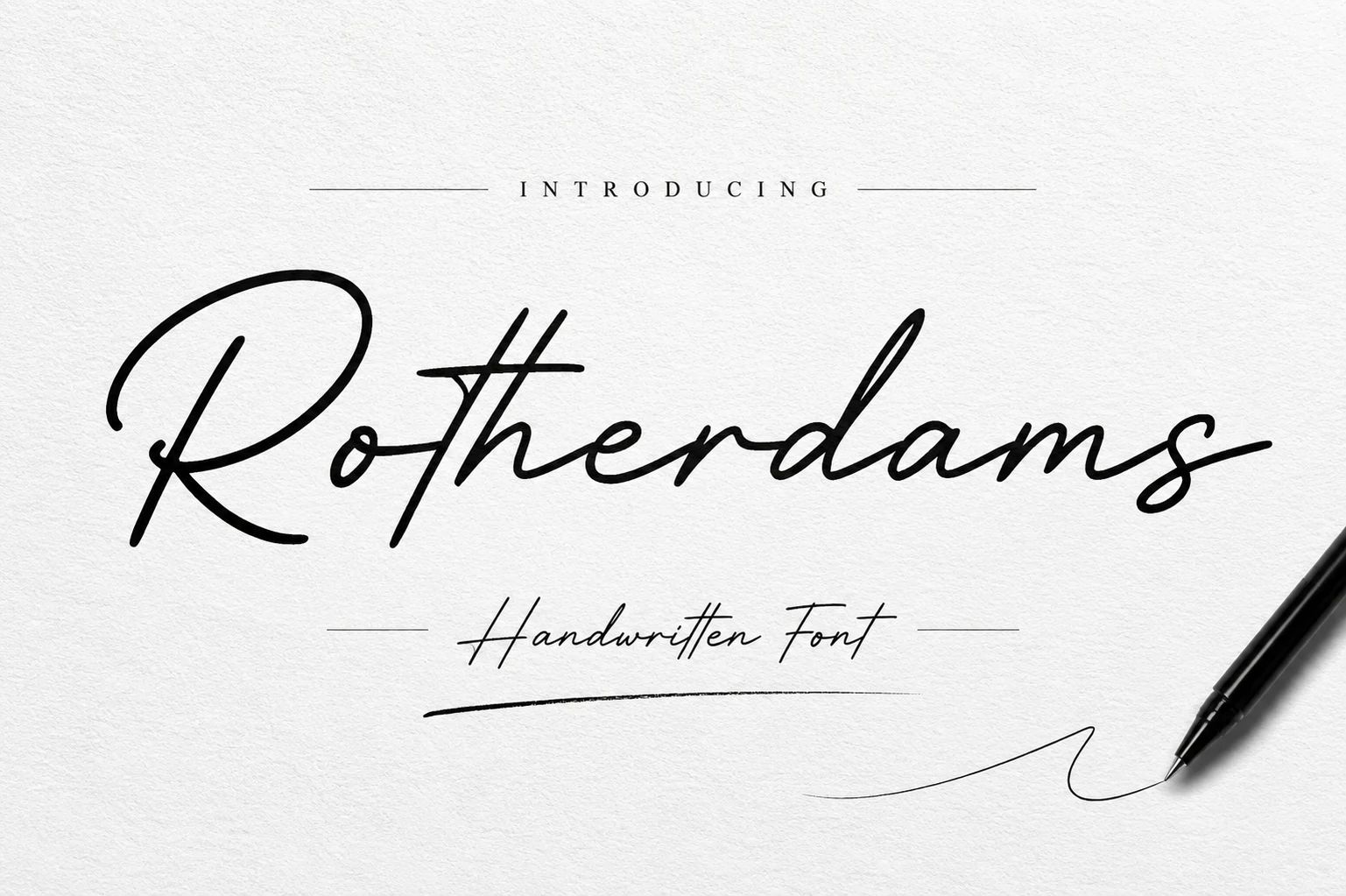
Rotherdams Font
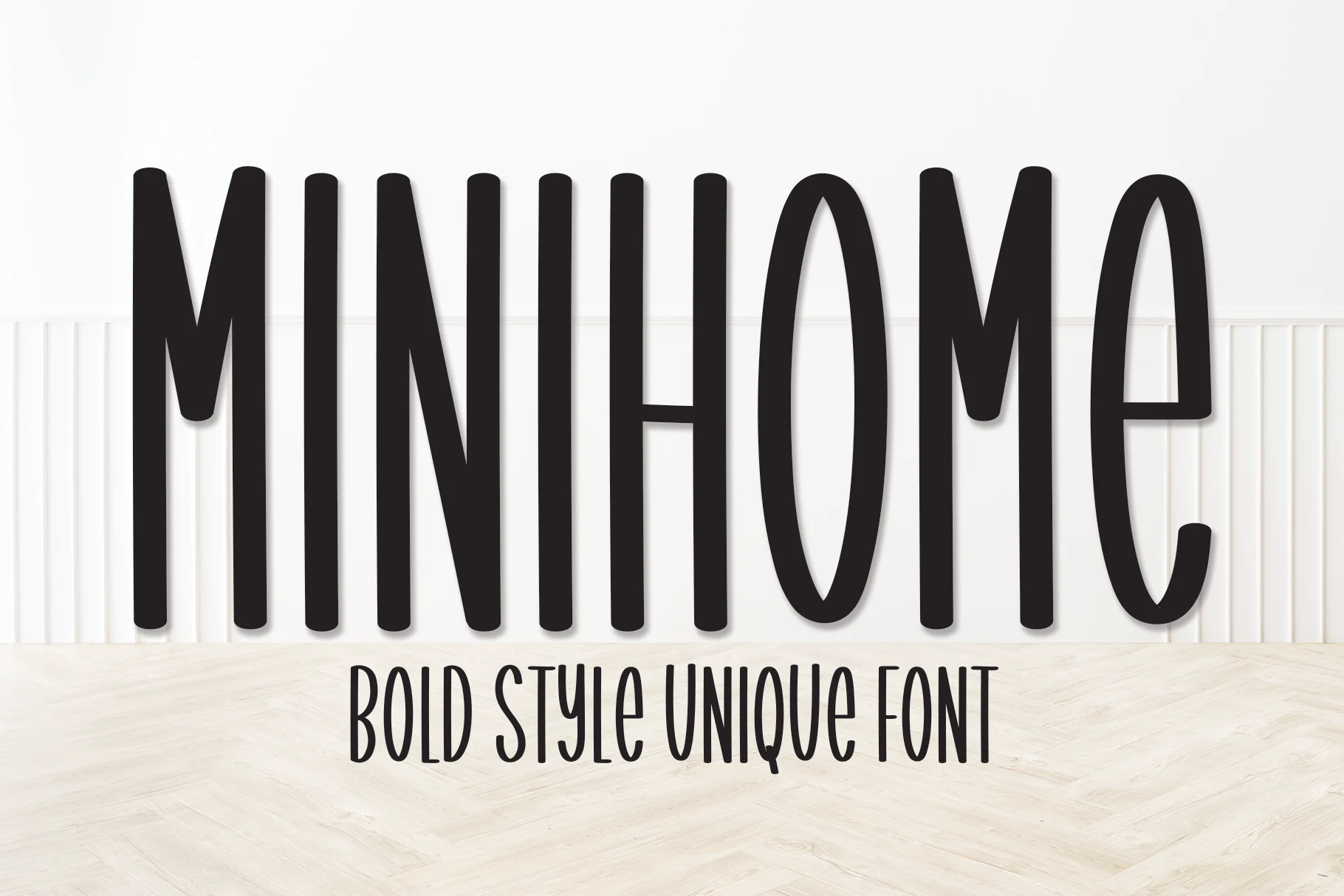
Minihome Font
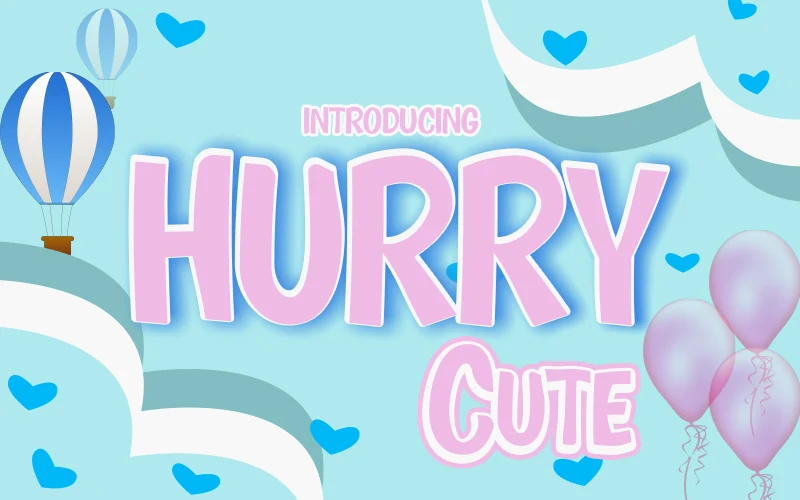
Hurry Cute Font
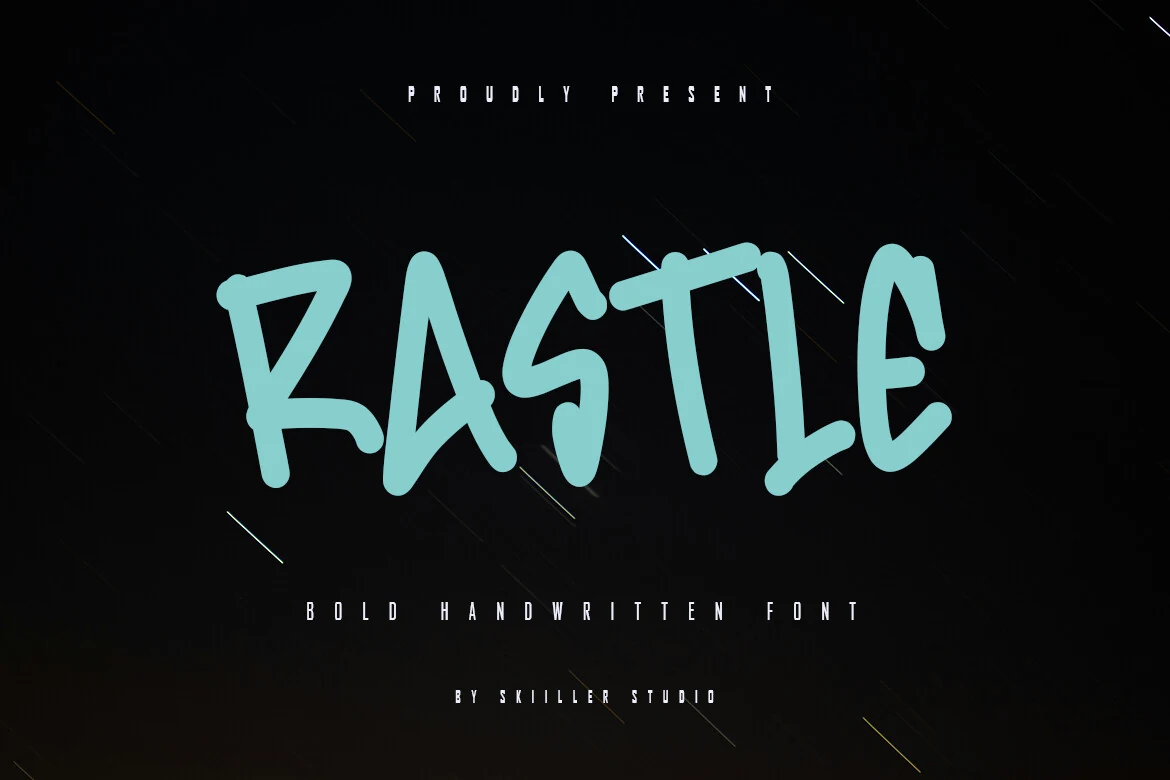
Rastle Font
Handwritten Fonts for Logos
Start here when the design needs a custom-looking wordmark, boutique identity, packaging logo, label mark, or personal brand signature. These fonts keep the handmade feel focused enough for real logo work.
Rotherdams Font
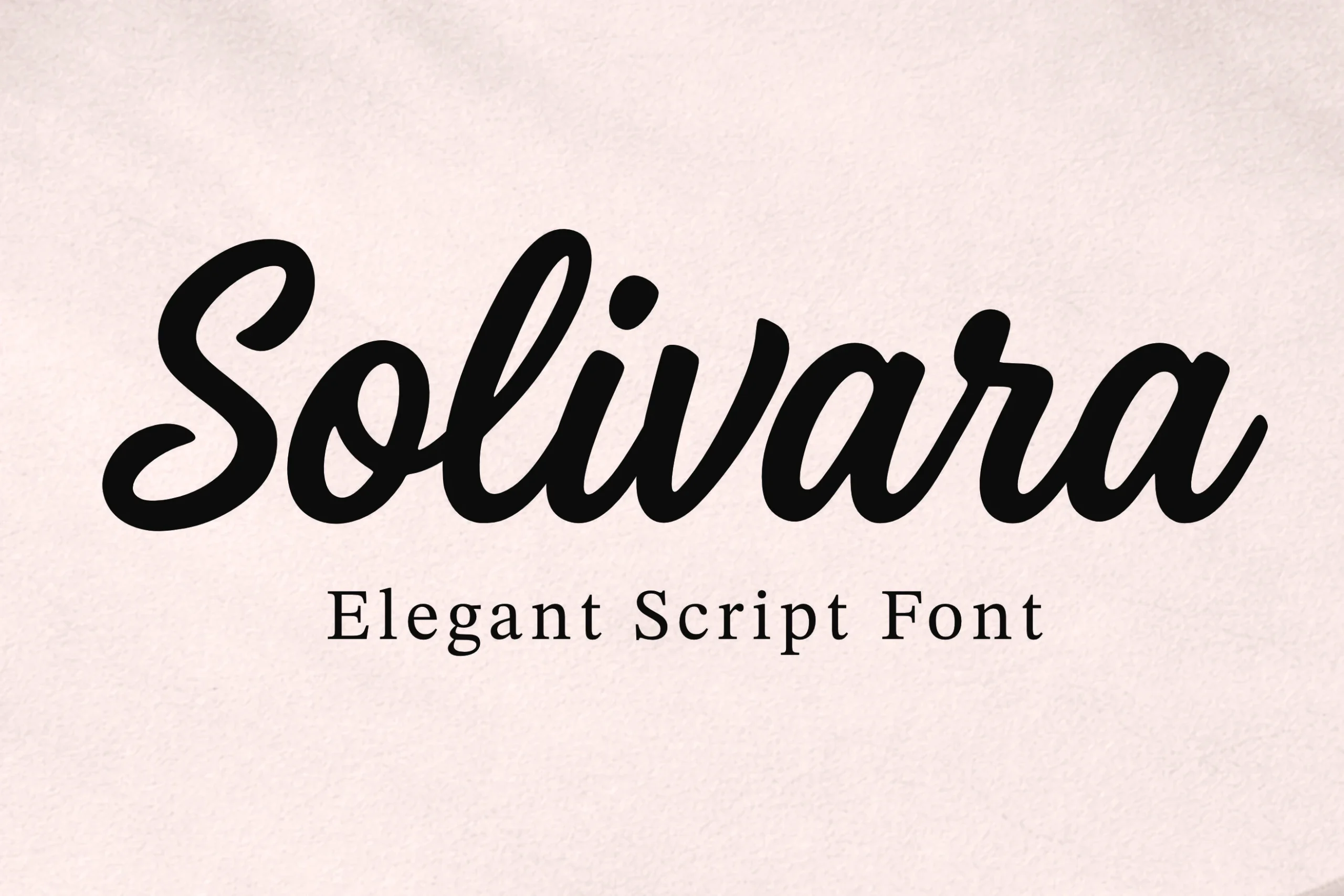
Solivara Font
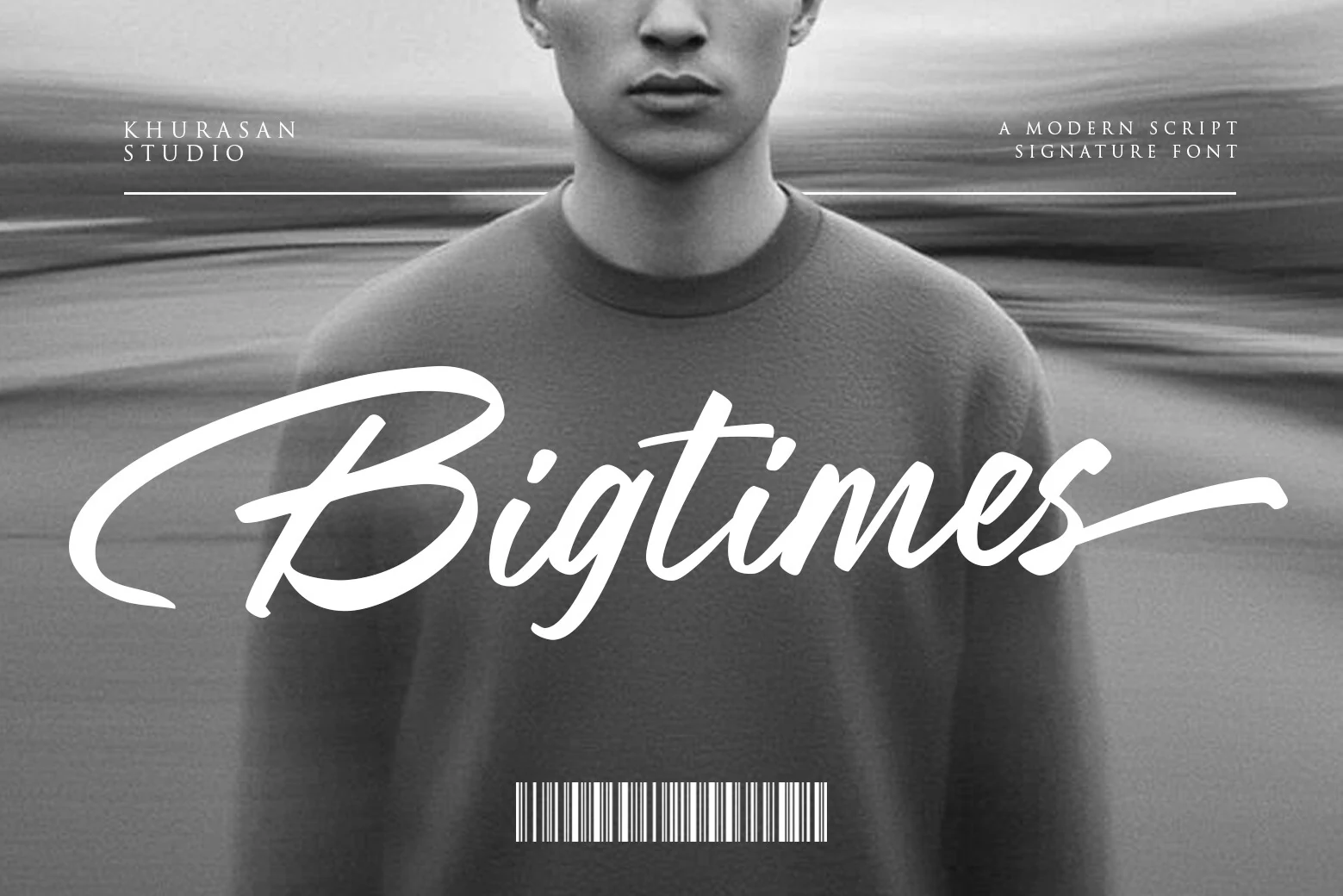
Bigtimes Font
Marigold Boutique Font
Modern Handwritten Fonts
Use this collection when the project needs handwritten lettering that feels current, clean, and controlled. It is useful for logos, editorial titles, social graphics, packaging, quotes, and invitation layouts that should feel personal without looking messy.
Minihome Font
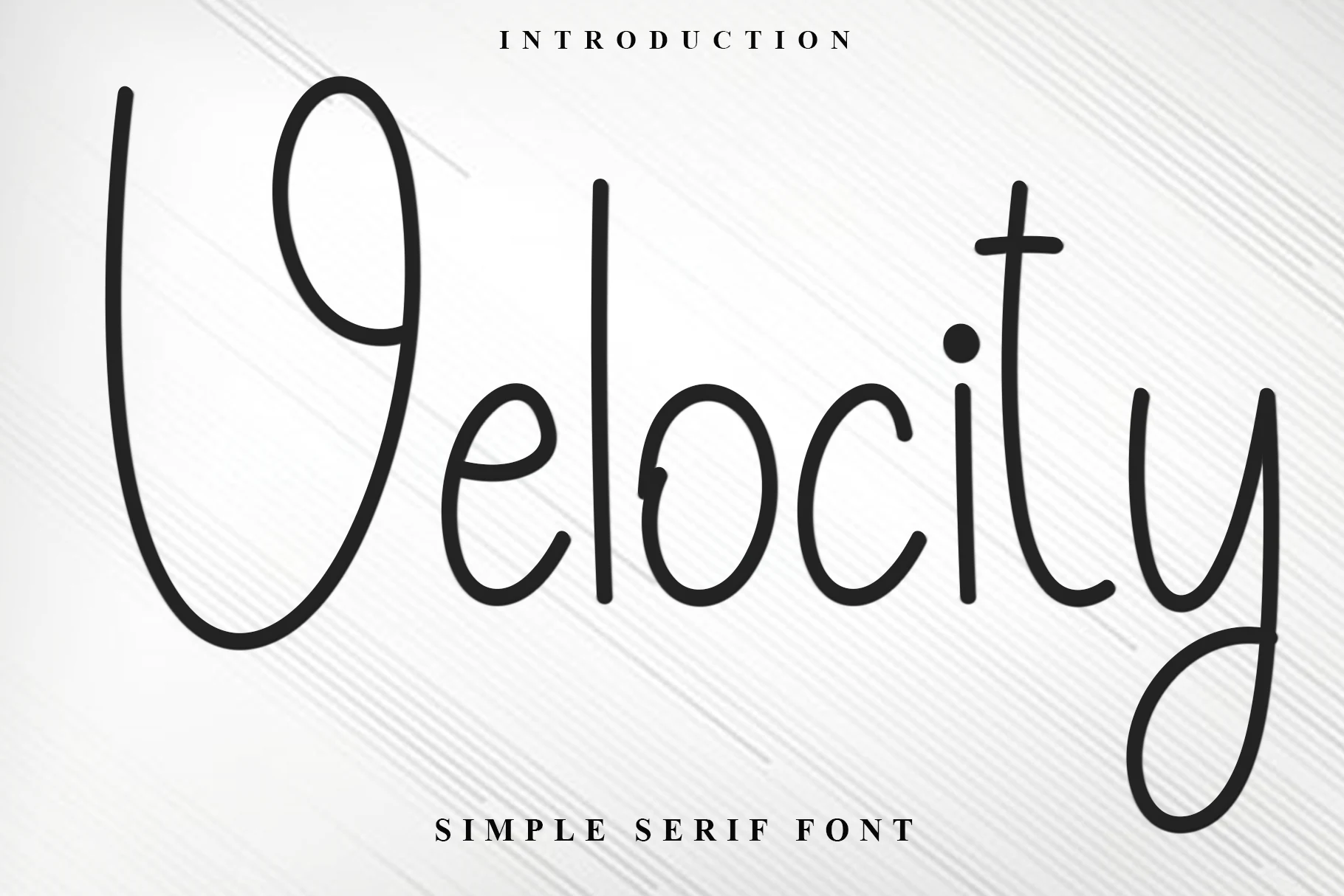
Velocity Font
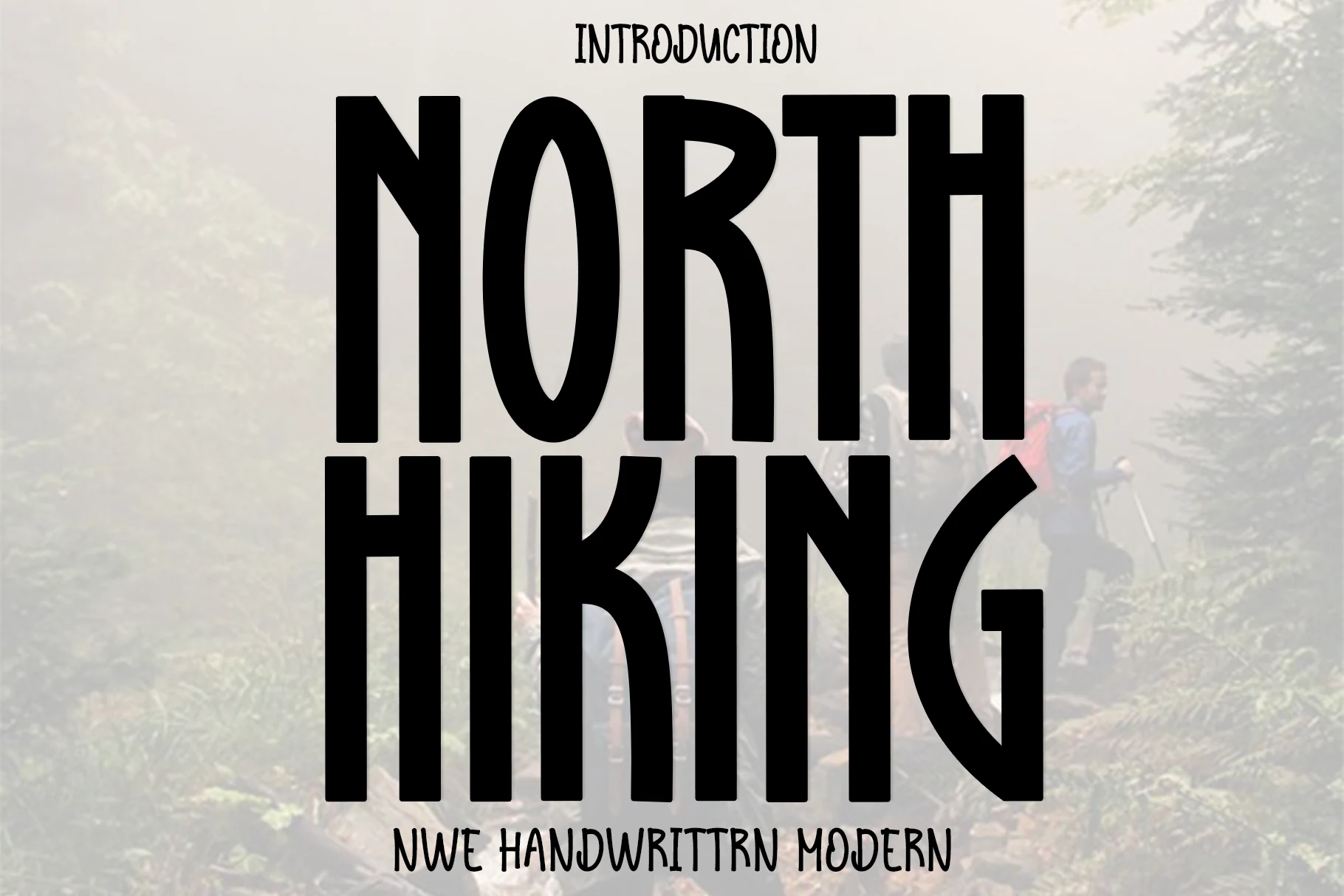
North Hiking Font
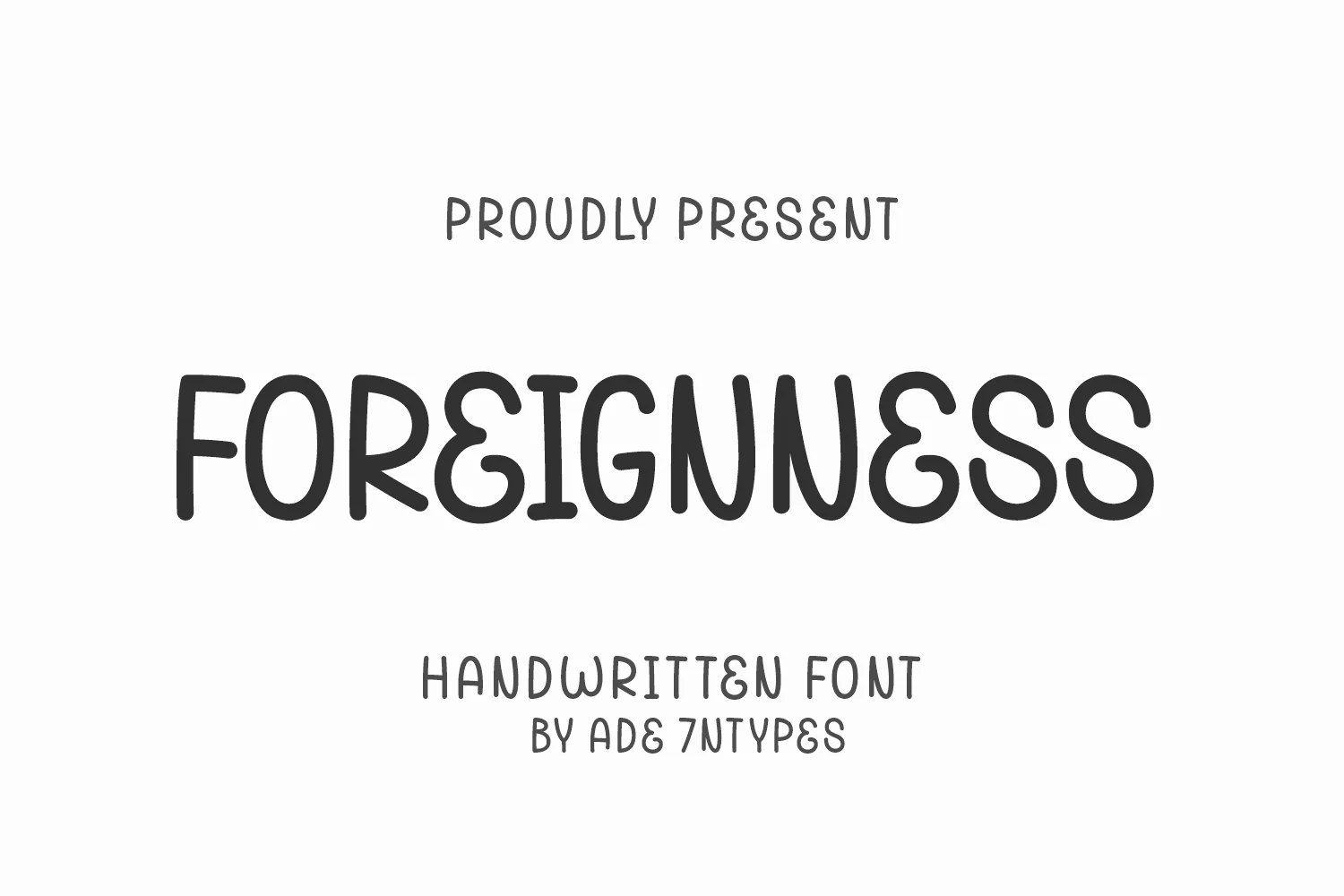
Foreignness Font
Signature Handwritten Fonts
These polished signature styles work well for beauty branding, fashion labels, personal marks, wedding stationery, and elegant name-based logos where the typography should feel refined and handwritten.
Sevilla Font
Daisy Font
Quinsky Font
Handgoals Font
Handwritten Script Fonts
This section is strongest for connected scripts, monoline lettering, flowing brush styles, and decorative handwritten script work. Use it for logos, invitations, labels, romantic graphics, quotes, and social media titles.
Amelia Rose Font
Orchidia Font
Monoline Font
Prontera Signature Font
Casual Handwritten Fonts
Choose casual handwritten fonts when the design needs relaxed lettering that still reads clearly. These styles fit friendly branding, stickers, invitations, packaging, everyday quotes, and approachable social graphics.
Sekar Wangi Font
Filmgoer Font
Rocstaine Handwritten Font
Purgatory Font
Cute Handwritten Fonts
Use cute handwritten fonts for playful layouts, kids’ graphics, classroom printables, stickers, packaging, T-shirts, and soft social posts where rounded shapes and friendly energy matter most.
Hurry Cute Font
Cute Monster Font
Cute Bunny Font
Lucky Farmer Font
Bold Handwritten Fonts
These heavier handmade fonts are built for fast visual impact. Use them for posters, merch, stickers, labels, packaging, social graphics, and short headline layouts that need thick strokes and strong hierarchy.
Rastle Font
Swift Marker Font
Thick Font
Blossom Font
Milkshake Font
Final Thoughts on Handwritten Fonts
The fastest way to choose Handwritten Fonts is to start with the job of the lettering. Use the main Best Handwritten Fonts guide when you need the broad overview first, handwritten fonts for logos when the wordmark needs a personal identity, modern handwritten fonts when the layout needs clean handmade style, signature fonts for refined name marks, script fonts for flowing connected lettering, casual fonts for relaxed brand visuals, cute fonts for playful projects, bold fonts for impact, brush fonts for painted motion, wedding fonts for romantic stationery, and Cricut handwritten fonts when the final design must work in craft, vinyl, sticker, or DIY formats.